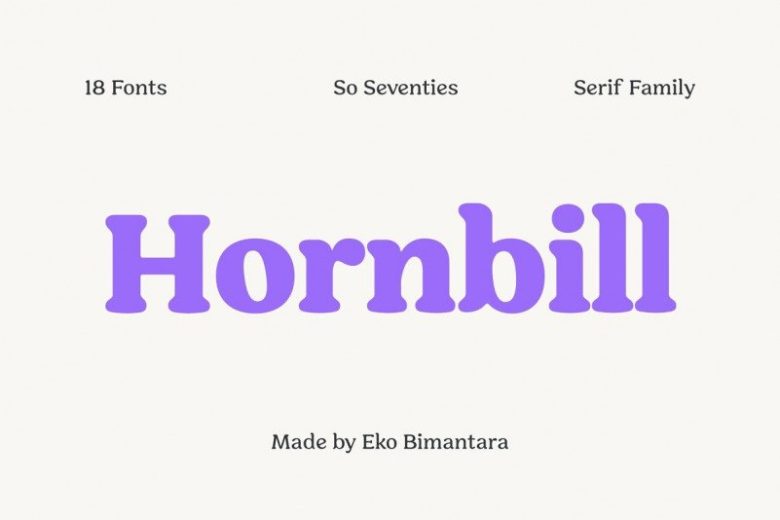
Hornbill Font Family
Say Hello Guy’s. Thank you for looking Hornbill Serif Family. This is a serif font family with 18 retro fonts. It’s designed and shared by Eko Bimantara. The design of its letters are simple, and it is ideal for combining different variables and typographic bodies, for digital and printed media.
It’s a soft serif font family that inspired by the 70’s retro styles. Hornbill give a clean and versatile letterform that fit not only for display, but also for reading purposes. Hornbill consist of 18 styles from thin to black with each matching italics. It’s absolutely perfect for titles, magazines, books, invitations, logos, packaging design, branding and more! Corvus is a perfect font to have in your design ideas.